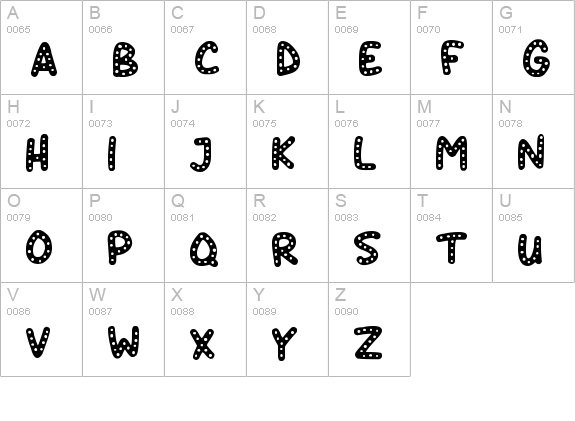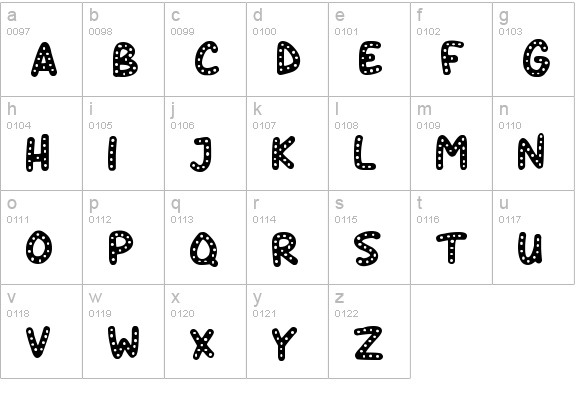
Crazy Dots Font Details
Crazy Dots is a donationware font in the Fancy > Decorative category, designed by Darrell Flood. It has been downloaded 164 times and is available for Windows, Mac and Linux.
Introducing Crazy Dots font, a whimsical and energetic typeface perfect for adding a playful touch to your designs. This font features a unique style with dots scattered throughout each letter, creating a fun and dynamic appearance. Whether you're working on a children's book, party invitation, or any project that needs a touch of creativity, Crazy Dots font is sure to make a statement.